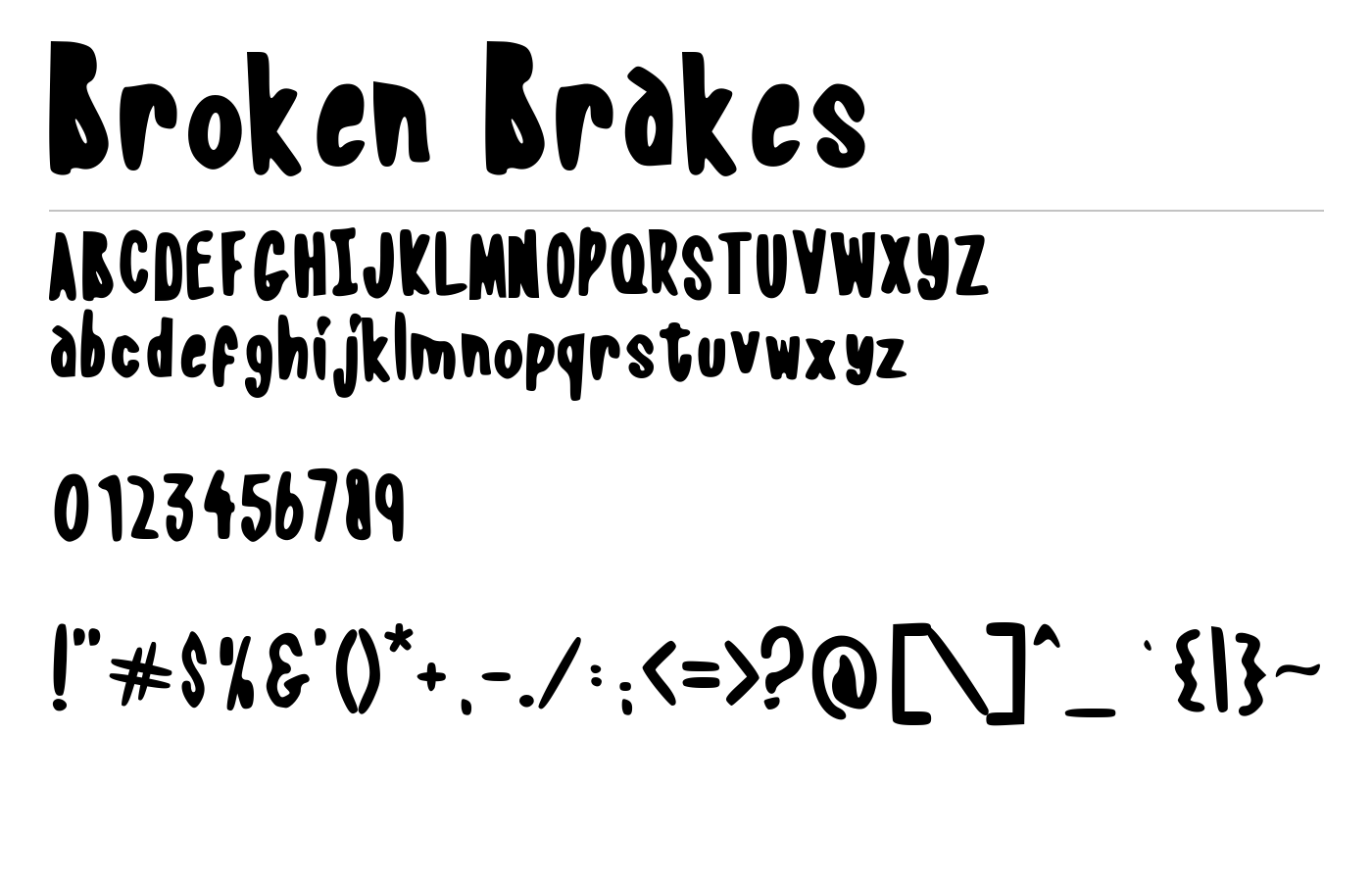
Broken Brakes is a quirky, hand-drawn sans serif font with a playful and slightly chunky appearance. Its uneven letterforms and bold, irregular shapes give it a casual, fun personality perfect for projects seeking a friendly, informal vibe. This font works well for eye-catching headlines, posters, and creative branding that aims to stand out with a lively, approachable style.
Broken Brakes Font
About Broken Brakes Font
| Font family | Broken Brakes Font |
| Designer | deedeetype |